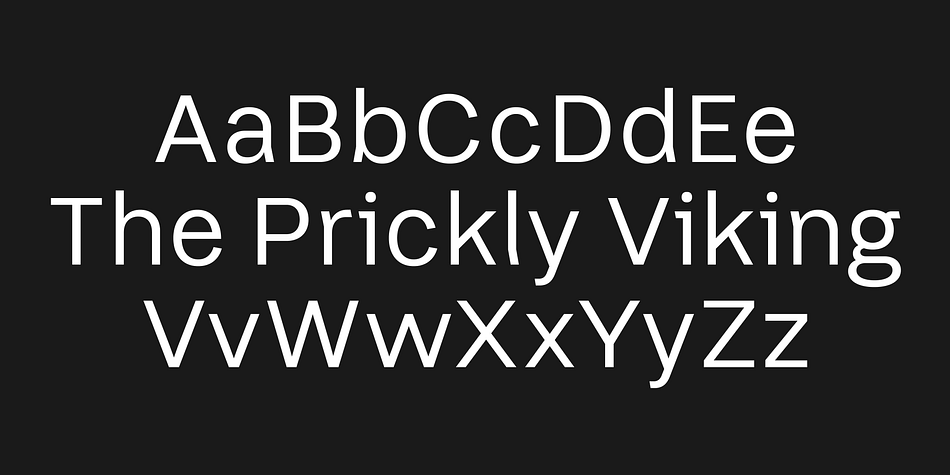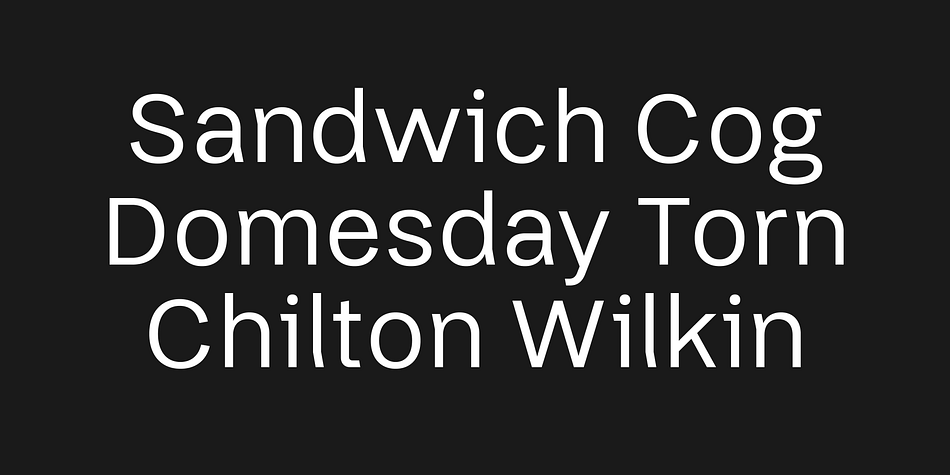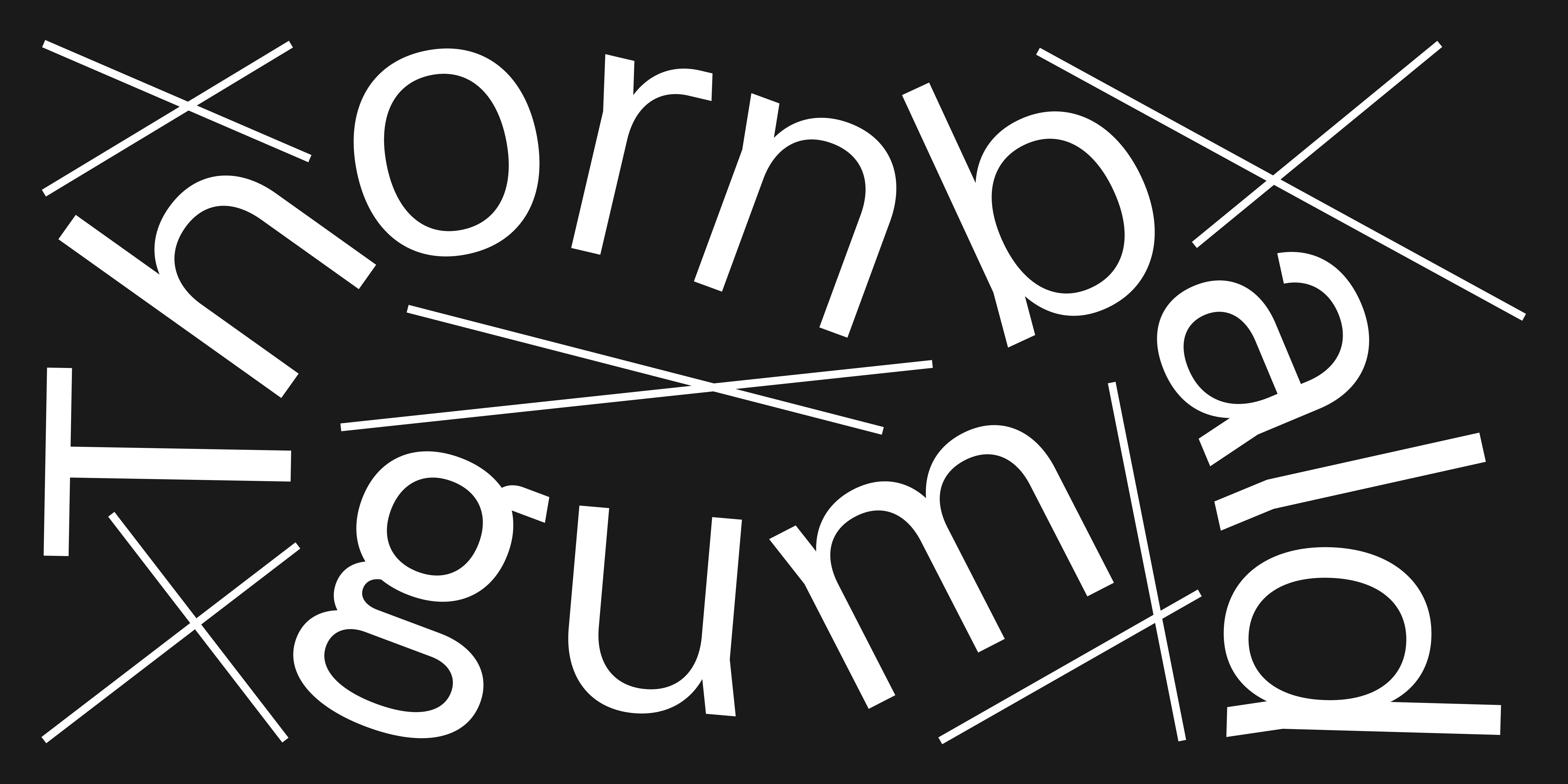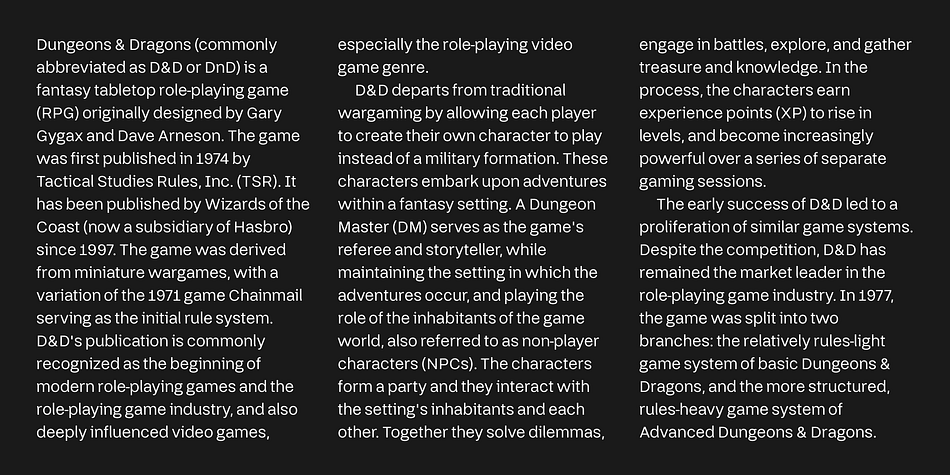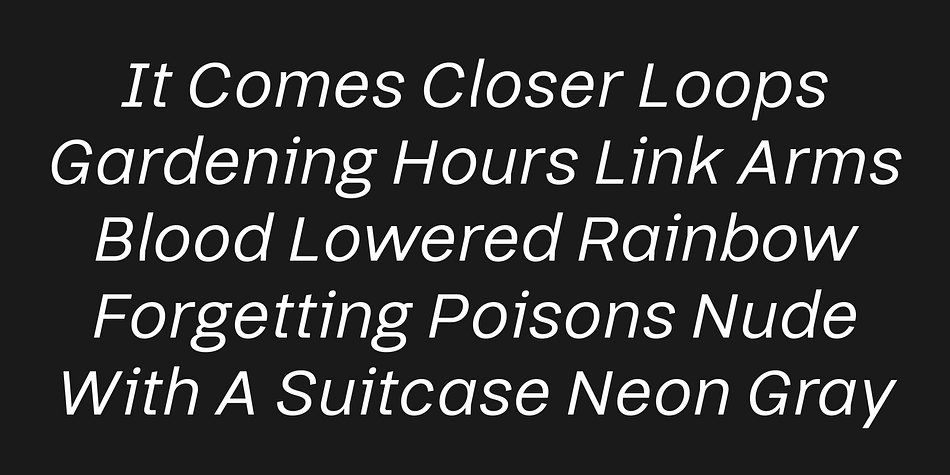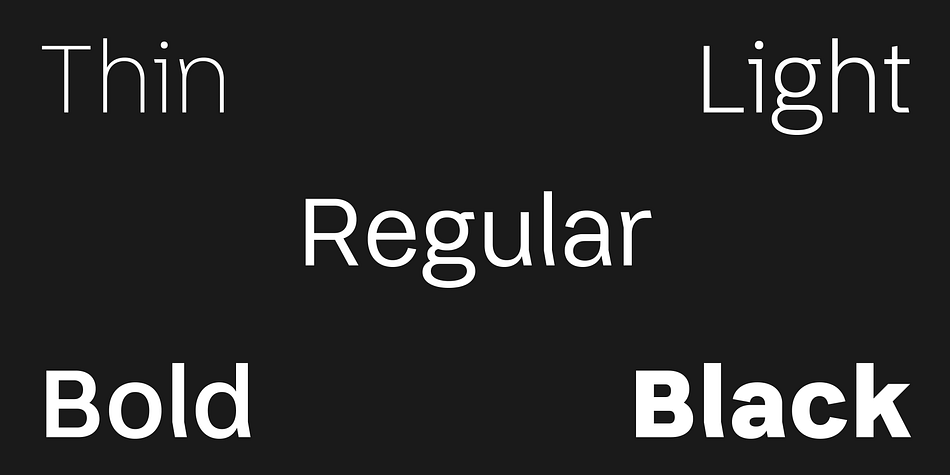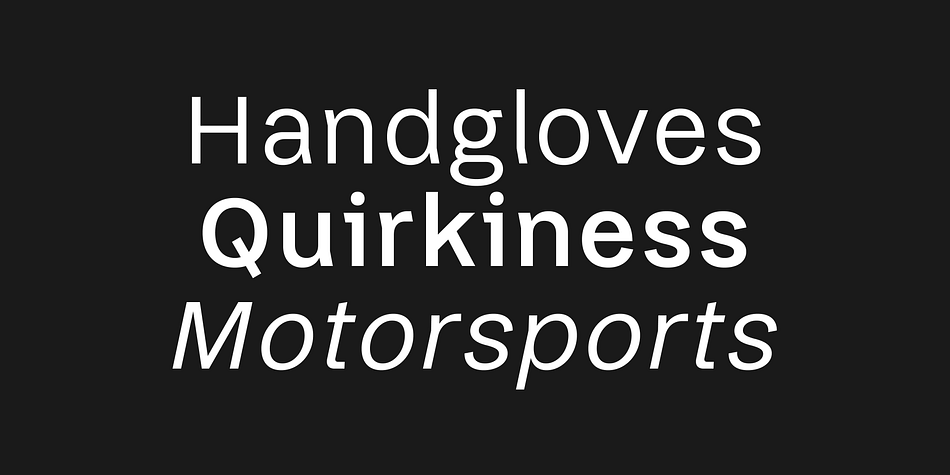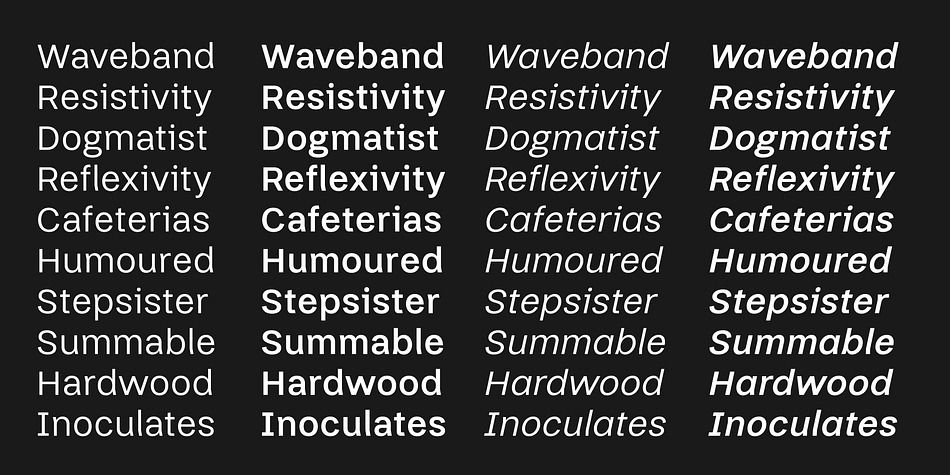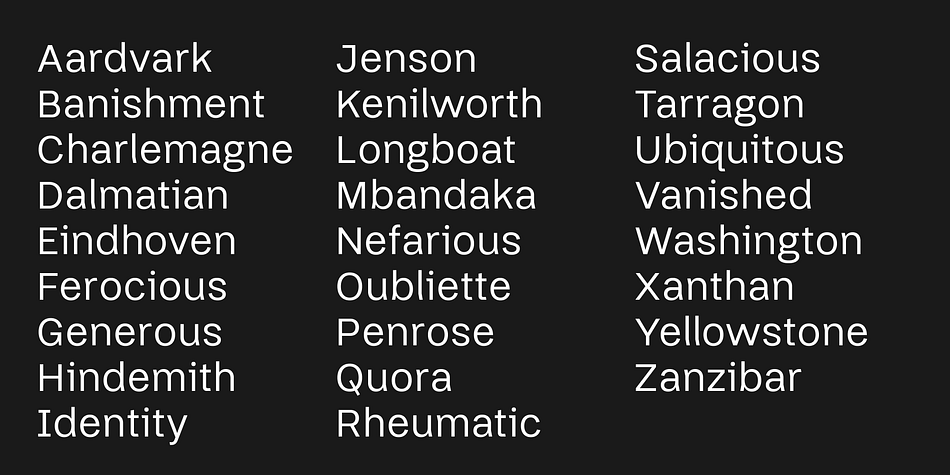
Thorngumbald
Thorngumbald is a sans serif font family. This typeface has ten styles and was published by Fettle Foundry.
Thorngumbald is a legible and accessible sans-serif typeface that draws inspiration from over a decade of industry experience in branding projects and design work for charities and other non-profit organisations.
Thorngumbald’s legibility is primarily achieved by exaggerating the differences between glyphs, such as the lowercase o and single-decker a, or uppercase I and lowercase l, to enhance readability for individuals with impaired vision and conditions like dyslexia. These exaggerations are evident in distinct glyphs like the lowercase i, which features a unique left-pointing ear, or the angled stems on the lowercase l, n, r, and d.
Additionally, counters on letters like c, a, and e are very open, and the typeface is spaced for optimal readability when used at small body copy sizes.
Thorngumbald is based on a Latin S character set, supporting over 380 Latin languages, and boasts an impressive 885 glyphs, including small caps, tabular figures, localised alternates, ligatures, mathematical symbols, fractions, superiors, inferiors, punctuation, extended currency symbols, arrows, shapes, and more.
Available in ten weights (five roman and five italic), Thorngumbald offers flexibility and ease of management within an accessible type family.